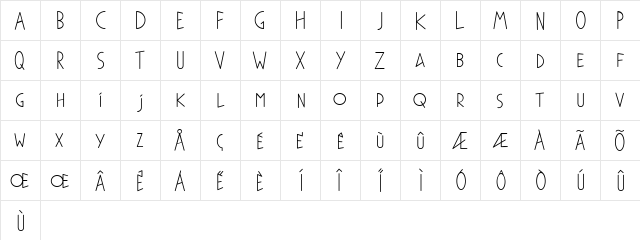
Phylactere DEMO Regular
| Foundry | Florent COURTAIGNE |
| Designer | Florent COURTAIGNE |
Design Context for Phylactere DEMO Typeface
Phylactere DEMO offers clean, dependable letterforms without strong stylistic allegiance, making it a practical choice for designers who need flexibility.